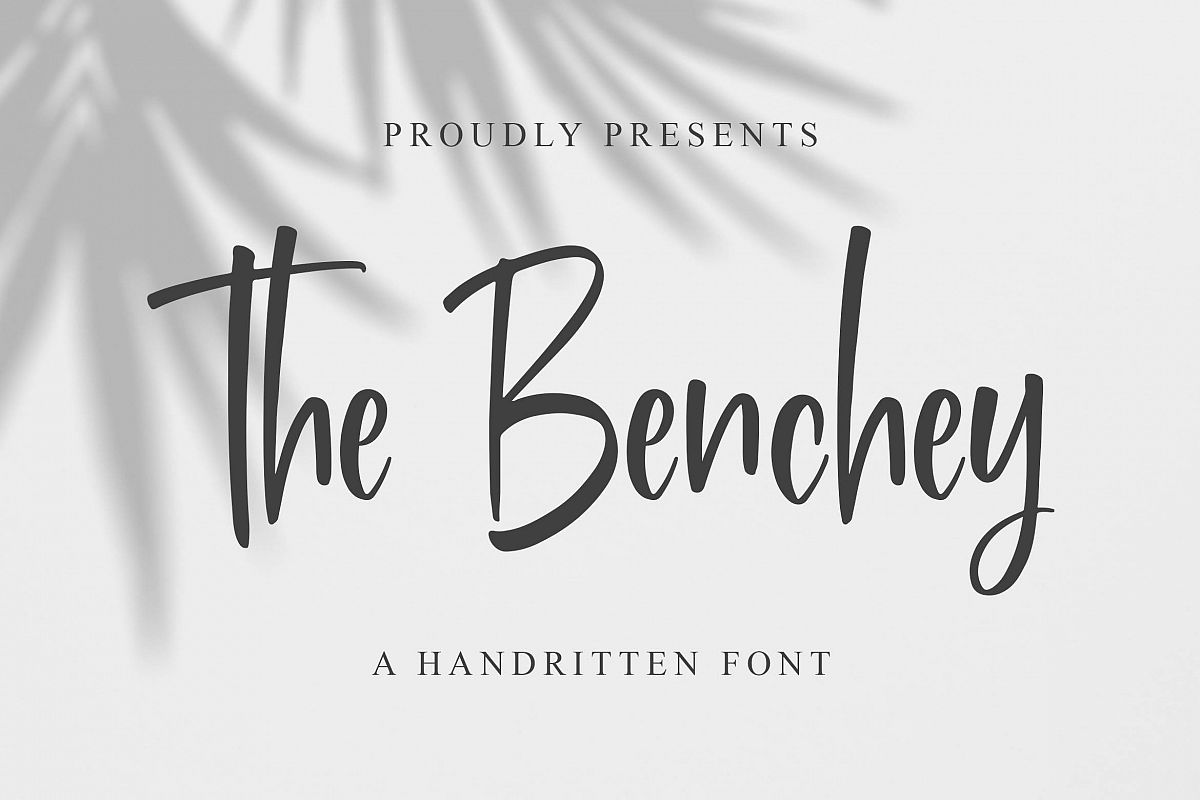
Introducing of our new product the name is Benchey Handwritten Font. Benchey inspired by modern calligraphy this font is a fun theme very good for Calligraphy serif, poster, food, wedding, branding etc
MULTILINGUAL ACCENT :ŽžŠŒšŸÀÁÂÃÄÅÆÇÈÉÊËÌÍÎÏÐŁÑÒÓÔÕÖØÙÚÛÜÝßàáâãäåæçèéêëìíîïłñòóôõöøùúûüýÿ